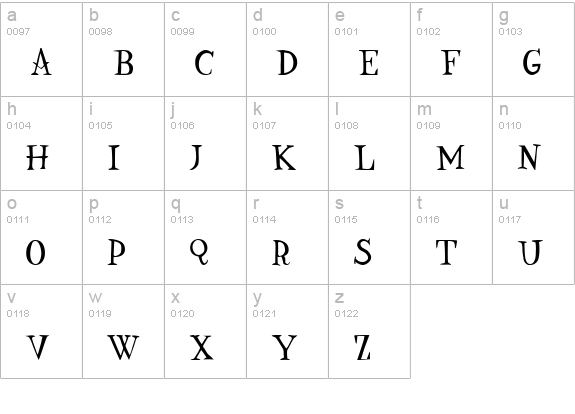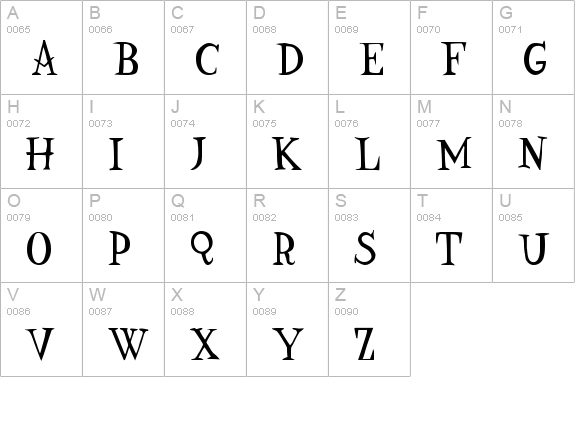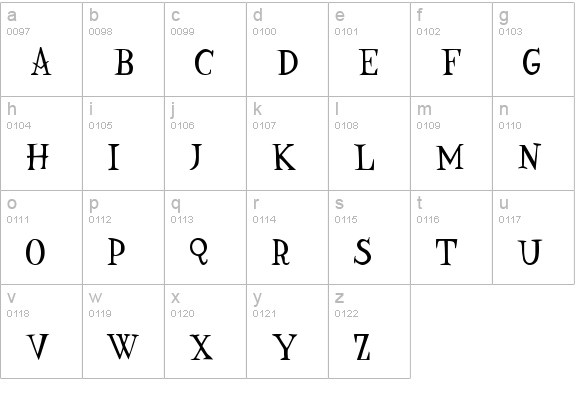
Nine font is a stylish and modern typeface that exudes elegance and sophistication. With its clean lines and sleek design, Nine font is perfect for a wide range of design projects, from branding to editorial design. This versatile font is easy to read yet eye-catching, making it ideal for both print and digital applications. The best part is that Nine font is available for free download at FontsMarket.com. So, whether you're a designer looking to add a touch of class to your projects or a business owner in need of a new font for your branding, Nine font is the perfect choice. Don't miss out on this amazing opportunity to enhance your designs with this beautiful font – download Nine font for free today!